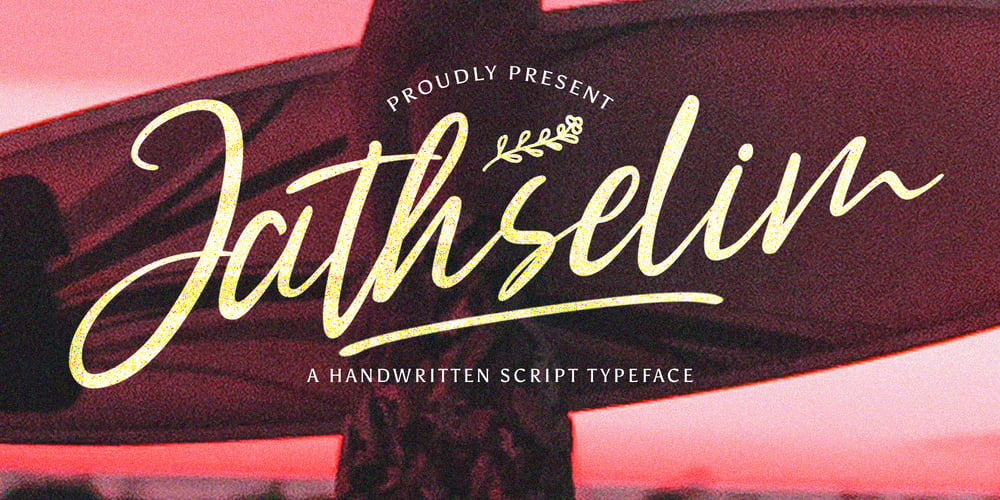
Jathselim Font Family was designed by Virgiawan Listanto and published by Stringlabs Creative Studio. Jathselim contains 1 styles and family package options. Jathselim is a beautiful and expressive handwritten font that combines elegance with a natural, organic feel. Its carefully crafted, flowing letterforms give it a personal touch, making it ideal for projects that require a warm, authentic vibe.